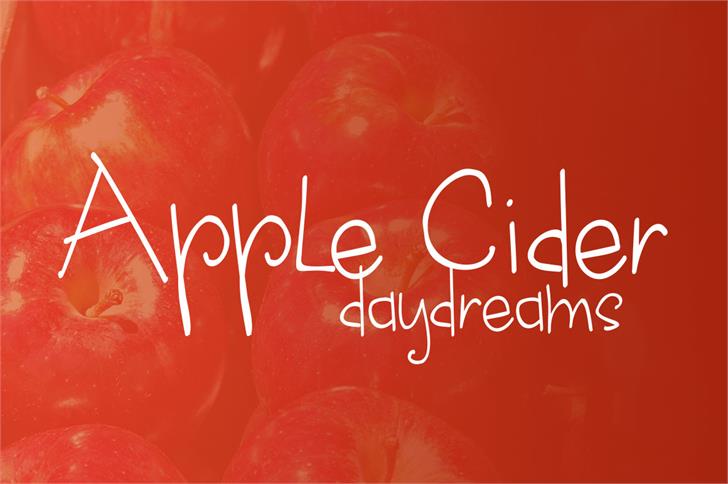
The Magic of Apple Cider Daydreams Font
I’ll never forget the afternoon I stumbled upon the perfect font for a craft project I was working on. I had been searching for what felt like hours, trying out font after font, but nothing seemed quite right. That was until I discovered Apple Cider Daydreams. This charming, hand-drawn font instantly captured the whimsical feel I was going for, and I knew I had found a winner. If you’re a designer, crafter, or hobbyist looking for a fun and versatile font, you’re in luck because today we’re diving into the wonderful world of Apple Cider Daydreams.
- ✨ The hand-drawn charm: Apple Cider Daydreams has a unique, homemade feel that’s perfect for crafts, scrapbooking, and other creative projects.
- ✅ Easy to read: Despite its playful nature, this font is surprisingly legible, even at smaller sizes.
- 🌈 Versatility: Whether you’re working on a digital project or a physical craft, Apple Cider Daydreams adapts beautifully.
While Apple Cider Daydreams is a delightful font, it’s not without its quirks. For instance:
- ⚠️ Limited formal use: This font is best suited for creative, informal projects. It might not be the best choice for more formal designs or professional documents.
- 🤔 Occasional kerning issues: As with any hand-drawn font, you might encounter some kerning issues, especially with certain letter combinations.
One of the joys of using Apple Cider Daydreams is exploring its OpenType features and glyphs. This font comes with a range of stylistic alternates and swashes that can add an extra layer of creativity to your designs. To access these features:
The story behind Apple Cider Daydreams is as charming as the font itself. Imagine a designer, sitting in a cozy cottage, surrounded by apple cider and the quiet beauty of nature. The goal was to create a font that felt like a warm hug – comforting, personal, and full of character. And so, Apple Cider Daydreams was born, a celebration of the simple joys in life.